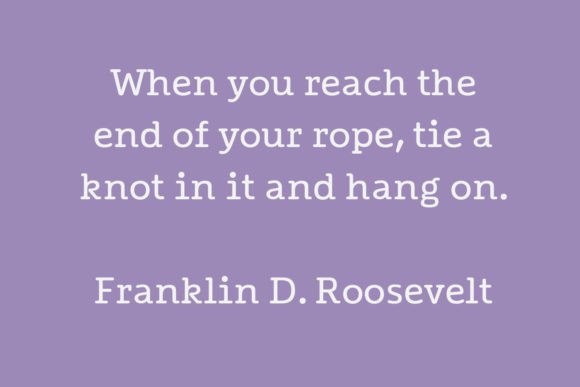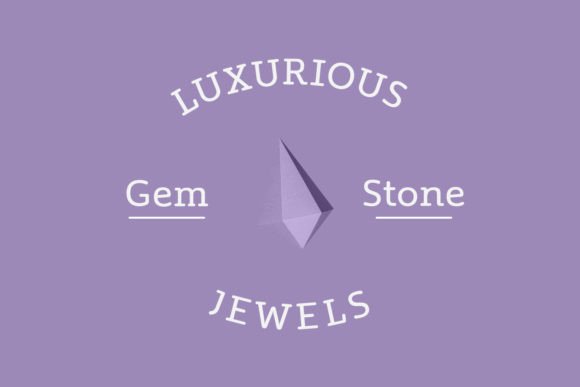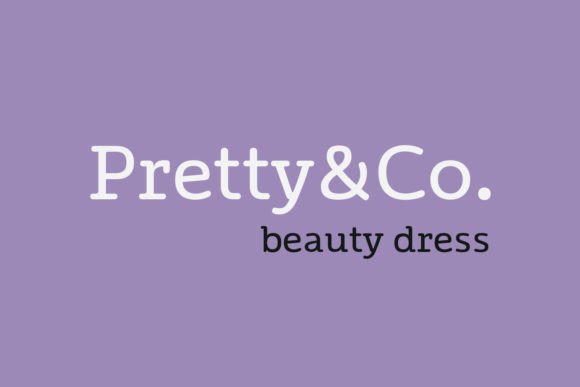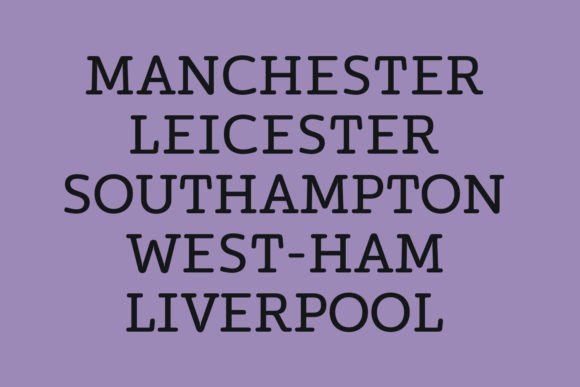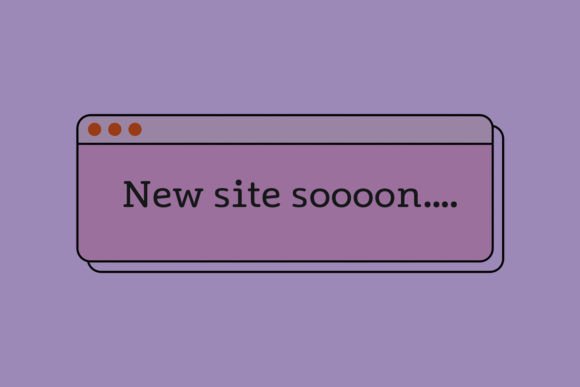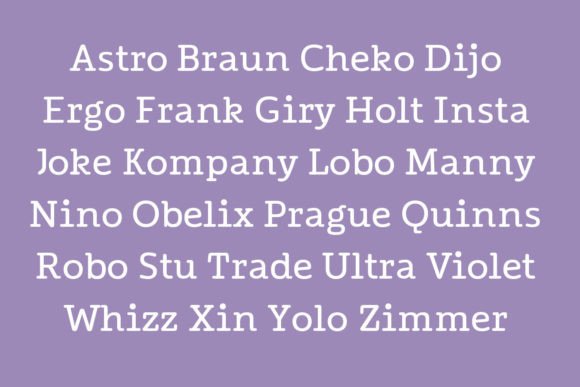
Introduction to Clovka Font
Have you ever found yourself staring at a blank canvas, struggling to bring your creative vision to life? That’s exactly where I was when I stumbled upon the Clovka Font. Its unique, mono-serif design instantly sparked an idea for a handmade greeting card, and I was hooked.
As a designer, I’ve come to appreciate the value of having a reliable, high-quality font at my fingertips. The Clovka Font is more than just a design resource – it’s a versatile tool that can elevate your creative projects, from digital designs to physical crafts.
Whether you’re looking for a free download to add some personality to your work or seeking a go-to font for presentations and more, the Clovka Font is sure to become a treasured asset in your design arsenal.
Key Features of Clovka Font
- High-quality vector graphics for a crisp and clear design
- Unique, hand-drawn style that adds a touch of personality to any design
- Perfect for designers and artists working on creative projects, including illustrations, graphics, and more
Honest Review: Clovka Font
I recently stumbled upon the Clovka Font, and I must say it’s been a game-changer for my creative projects. The high quality of this font has elevated my designs to the next level.
Here are some features that work well for me: ✨
- High quality: The Clovka Font is well-crafted and has a professional look to it.
- Transparent background: This feature has been super helpful for creating designs that require a clean and minimalist aesthetic.
While the Clovka Font has been a great addition to my design arsenal, there are a few limitations I’ve encountered: ⚠️
- Limited style options: The font only comes in a few styles, which may not be suitable for projects that require a wide range of typography options.
- No bold or italic versions: This can be a limitation for designs that require emphasis or emphasis on certain words.
Overall, I’m impressed with the Clovka Font, and I would recommend it to anyone looking for a high-quality, free design resource. With a little creativity, I’ve been able to work around the limitations, and the results have been fantastic.
Clovka Font
To get the most out of the Clovka Font, experiment with different font sizes, colors, and backgrounds. You can also use the font in combination with other design resources like graphics and textures to create a unique visual identity. Don’t forget to take advantage of the transparent background feature to create seamless designs.
Alternatives to Clovka Font
Alegreya Font
Alegreya is a high-quality serif font designed by Juan Pablo del Pino. It’s ideal for creative projects that require a sophisticated and elegant look. Alegreya is perfect for book covers, magazine layouts, and any design that needs a touch of sophistication.
Compared to Clovka Font, Alegreya has a more traditional feel and is better suited for text-heavy designs. While Clovka Font is great for illustrations and graphics, Alegreya excels at conveying information and creating a sense of depth.
Lato is a modern sans-serif font designed by Łukasz Dziedzic. It’s a great choice for designers who need a clean and simple font for their creative projects. Lato is perfect for websites, apps, and any design that requires a modern and minimalistic look.
Compared to Clovka Font, Lato is more versatile and can be used for a wide range of designs, from logos to body text. While Clovka Font is great for illustrations and graphics, Lato excels at creating a clean and modern aesthetic.
Is the Clovka Font suitable for designs with transparent backgrounds?
Yes, the Clovka Font is designed to work well with transparent backgrounds. Its high-quality design and clean lines make it an ideal choice for creating visually appealing designs that require a transparent background, such as logos and icons.